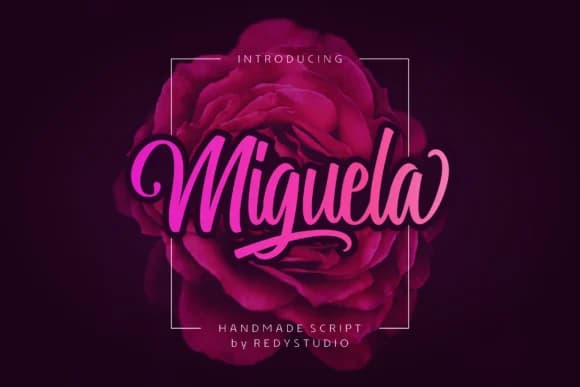
This font radiates an easy, genuine confidence that draws people in. Miguela Script Font by RedyStudio captures that feeling with a dynamic, flowing letterform that moves across the page with real character and spontaneous movement. The handwritten quality maintains legibility while keeping that fresh, hand-drawn feel that makes people actually stop and take notice.
You'll find it shines for wedding invitation suites where you want warmth and intimacy over rigid formality, hand-lettered business cards for design studios and creative entrepreneurs looking to stand out from the crowd, and custom stationery projects where genuine personality trumps corporate polish. Etsy sellers gravitate toward it for product labels and boutique packaging that feel thoughtfully crafted rather than mass-produced. The flowing forms work beautifully in Instagram story headers and social media templates, while indie book covers and chapter dividers use it to signal authenticity and care. Even small shop owners print it onto wooden signs and craft fair signage where hand-drawn character is the entire appeal.
Miguela Script Font is a script font that shines as a display or heading face. Pair it with a clean sans-serif or serif font for body text β the contrast creates a clear hierarchy while the two styles stay balanced and easy to read.